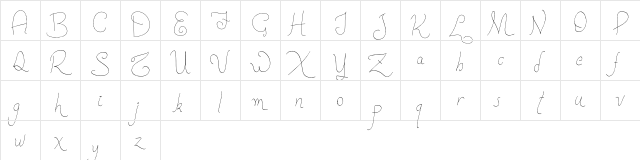
New Spirit Regular
| Foundry | Paulo R |
| Designer | Paulo R |
Design Context for New Spirit Typeface
New Spirit is a composed and adaptable typeface that performs quietly and consistently across a wide range of design contexts.